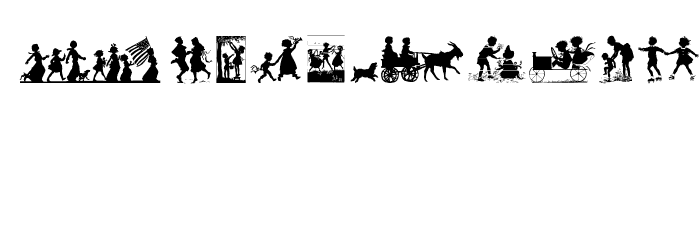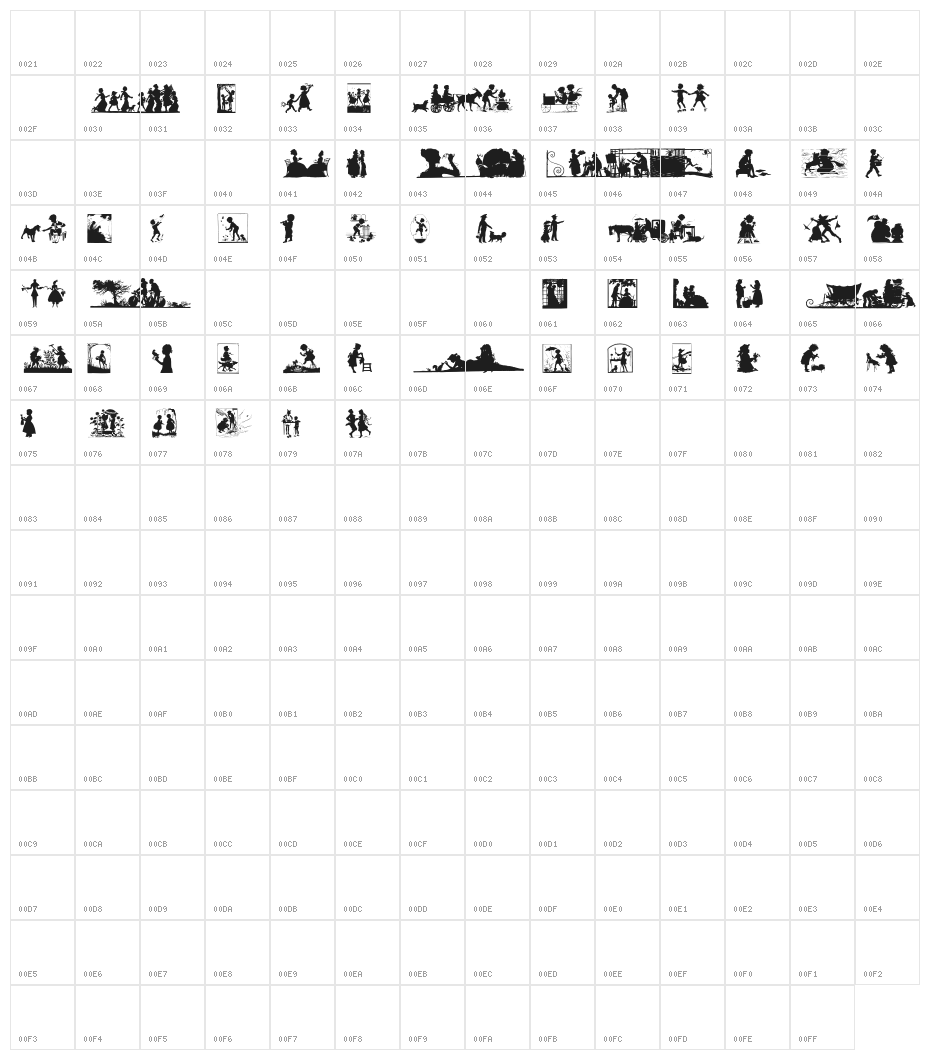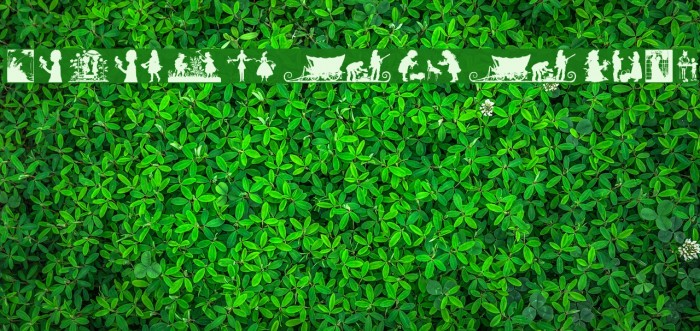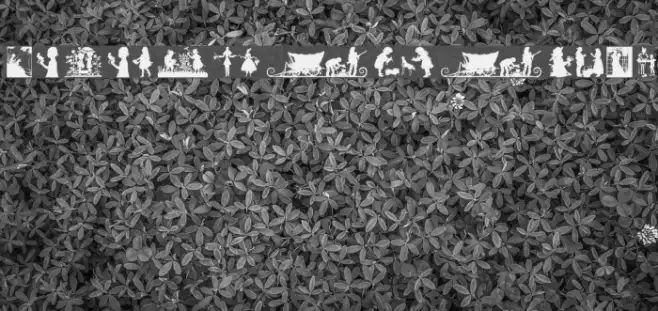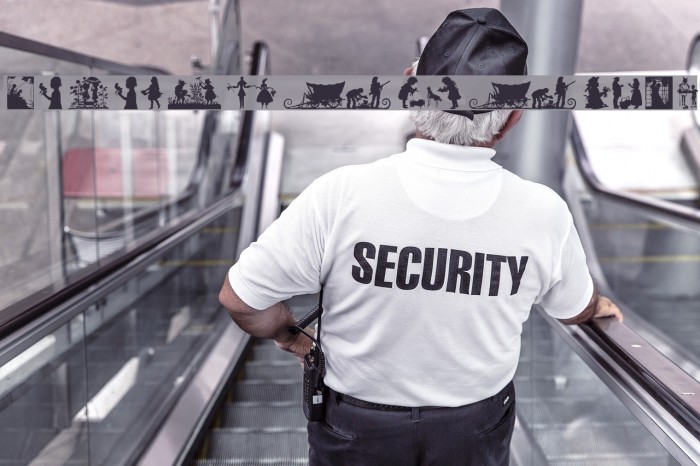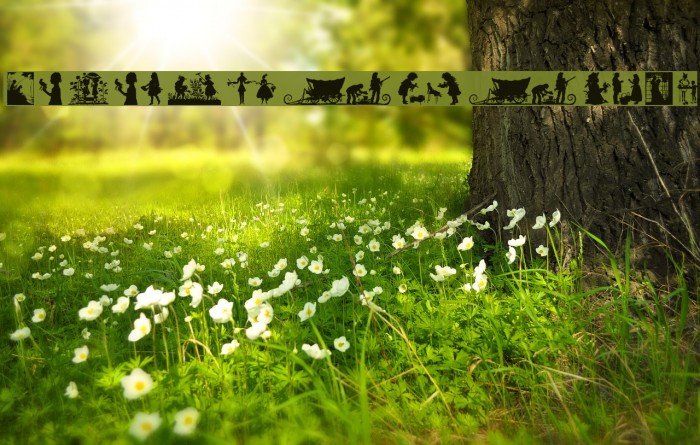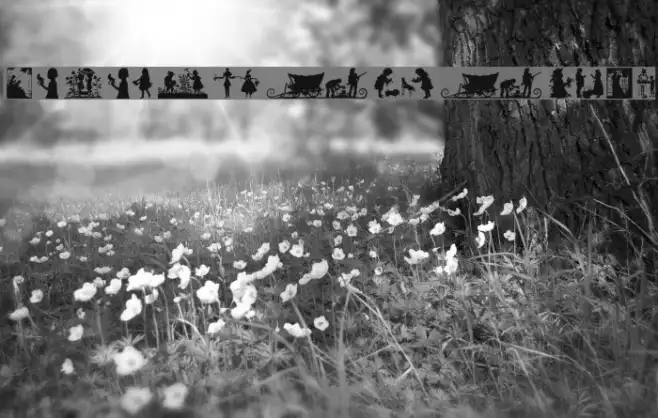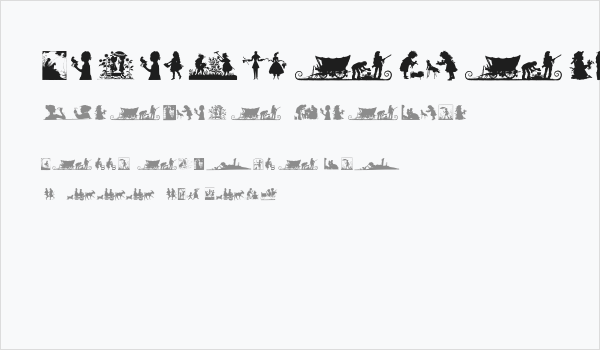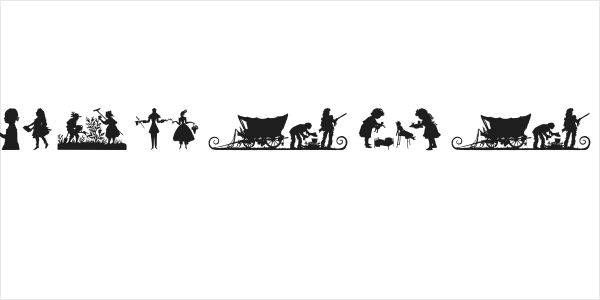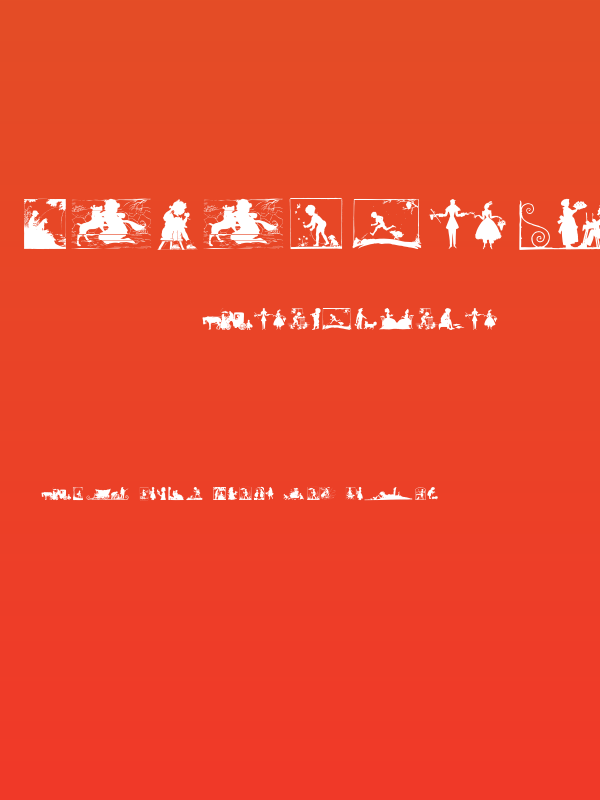
LivingYesterday Font
A decorative font composed of detailed black silhouette illustrations depicting vintage scenes of children and adults in various activities, evoking a nostalgic, storybook feel. Each character is represented by a unique vignette rather than traditional letterforms.
| Overall Style | Vintage, Decorative, Storybook |
| Use Case | Logos, Headlines, Decorative elements |
| Proposed Projects | ChildrenΓ’β¬β’s book covers, invitations, greeting cards, vintage-themed posters, scrapbooking, decorative headings. |